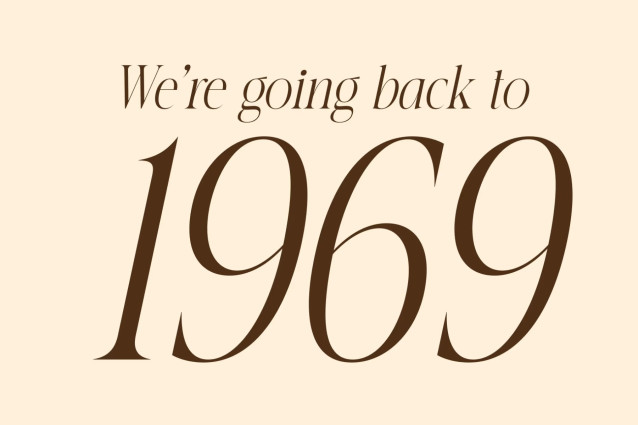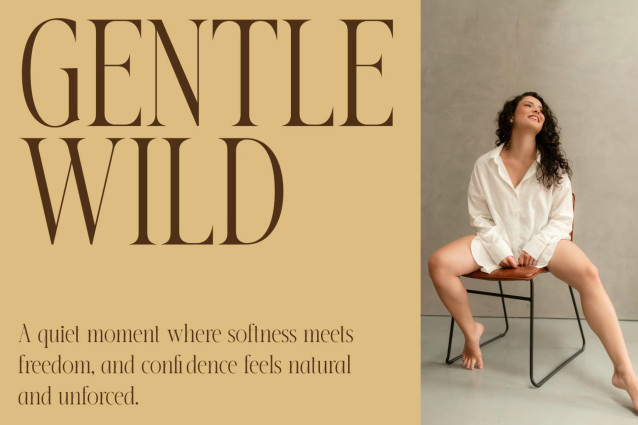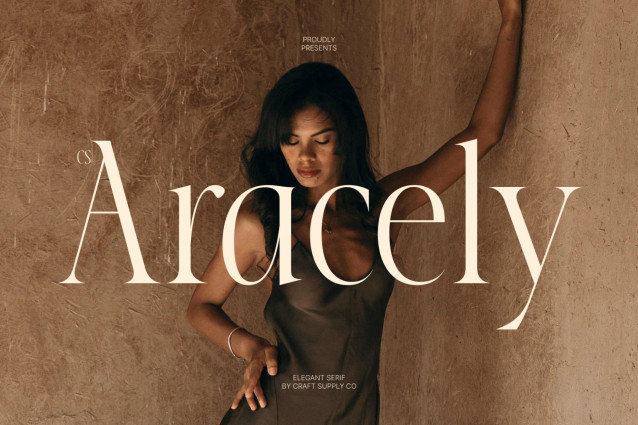
CS Aracely – Elegant Serif Font: Where Refined Curves Meet Timeless Luxury
Refined Curves with Graceful Elongated Details
This is an elegant serif font distinguished by its refined curves and elongated details, creating a sophisticated and luxurious visual identity. Its graceful letterforms combine delicate proportions with carefully crafted serif elements, resulting in typography that feels polished, expressive, and effortlessly elegant. Every character is designed to communicate beauty and professionalism with timeless appeal.
Contemporary Elegance with Classic Inspiration
This font offers a balanced aesthetic that feels both timeless and contemporary. Its elongated details introduce a sense of rhythm and elegance, while its clean structure ensures clarity and versatility across a variety of premium design applications.